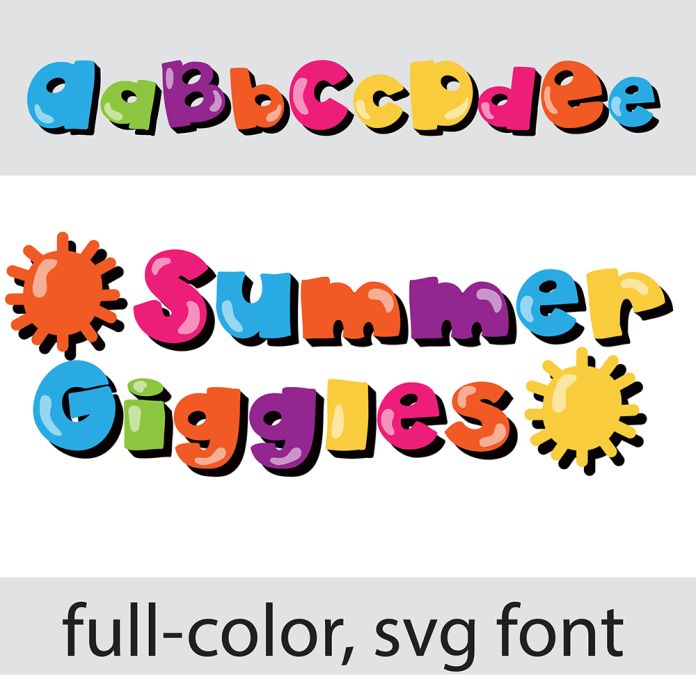
This full-color font features 3d whimsical lettering in a summer color palette. Access the summer glyphs by typing the greater than and less than glyphs. There is an alt case with additional colors you can access through your system's character map. This font works best for titles, displays, posters and more. Please note color fonts will show as black in non compatible programs. This font type is compatible with Silhouette Studio.